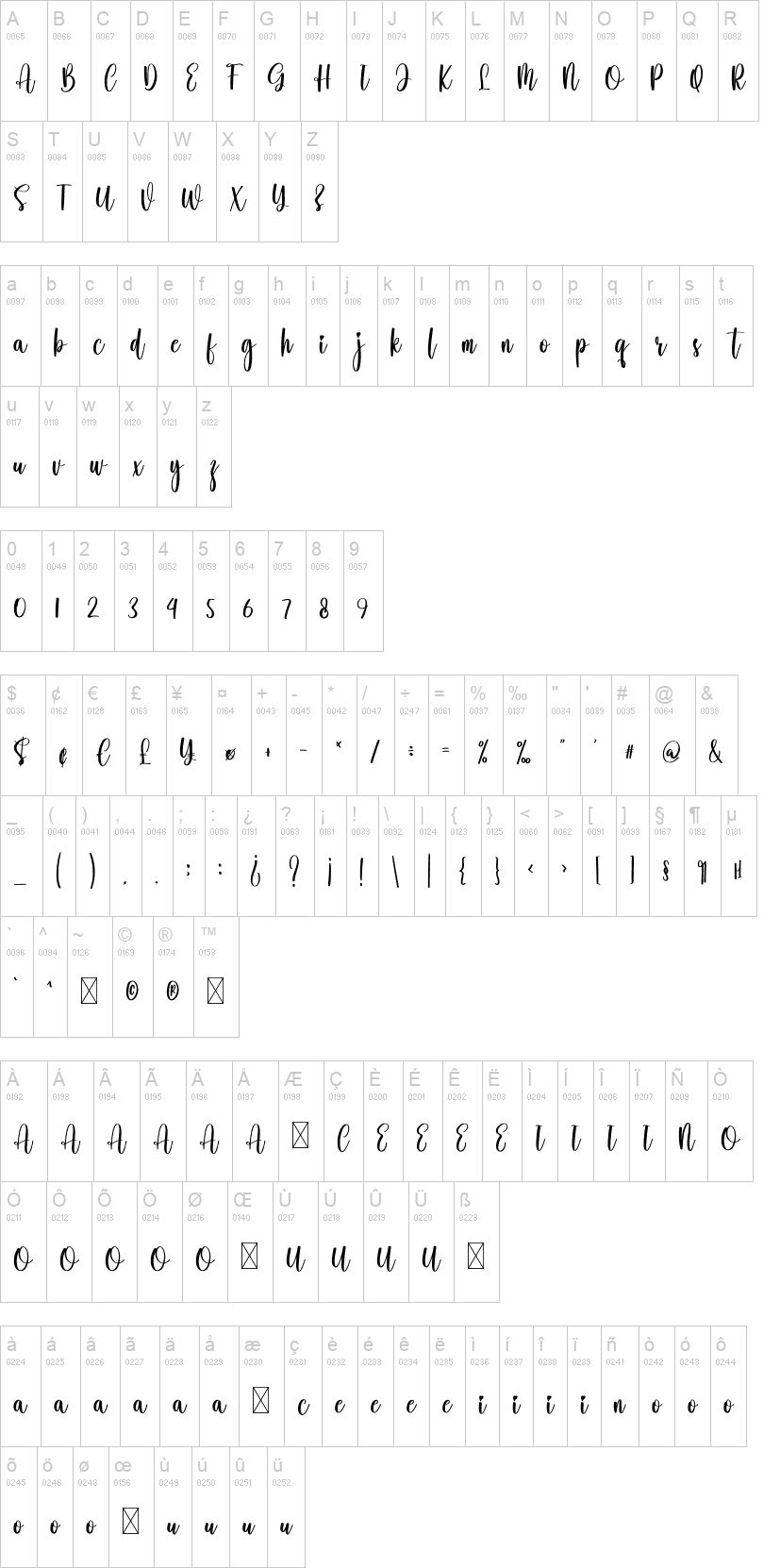
This font retains a classy calligraphic influence while feeling contemporary and fresh. This versatility will attract a wide range of creative ideas, from letterheads and titles to stationery.